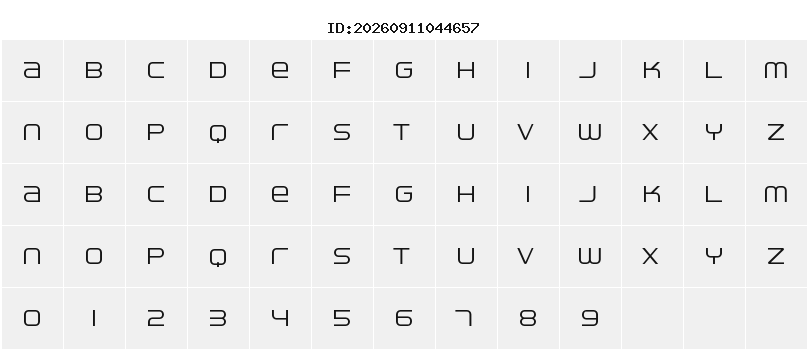
Ventisei Preview
• Font Name: Ventisei
• Font ID: Dav(id)Hubner,formlos/Forma: El Al 26: 2008
• Full Font Name: Ventisei
• PostScript Name: Ventisei
• Designer: Dav(id) Hubner, Forma/formlos
• Manufacturer: Dav(id) Hubner, Forma/formlos
About Ventisei.otf
Ventisei.otf is a modern, elegant sans-serif font designed for ultimate readability and visual harmony. Perfect for branding, headlines, web design, and print materials.